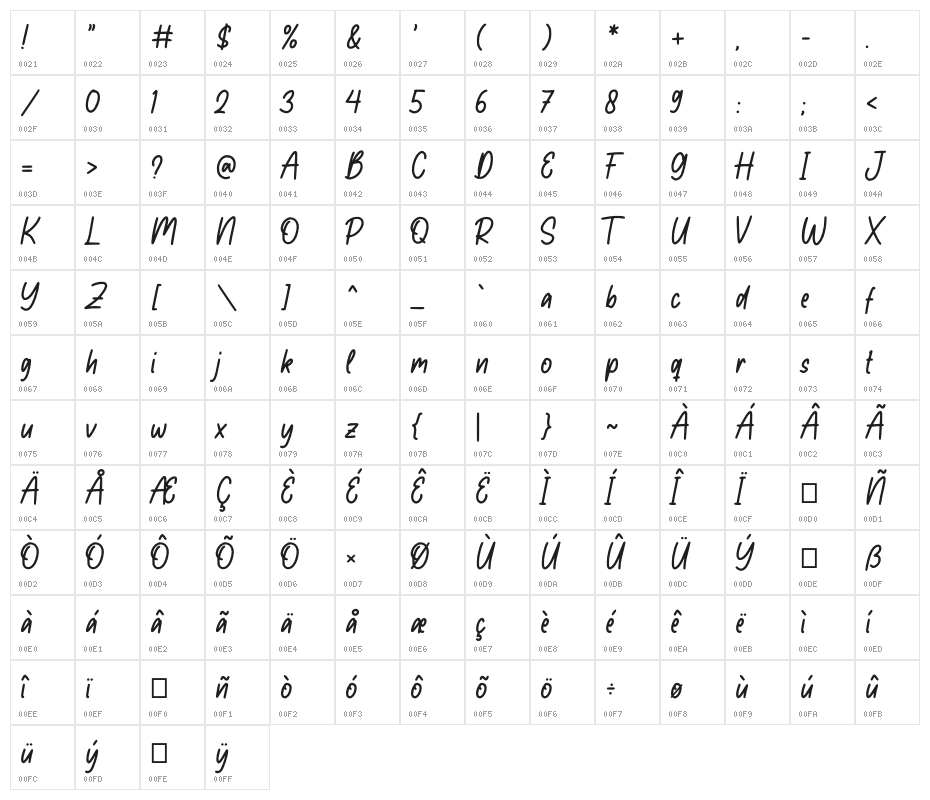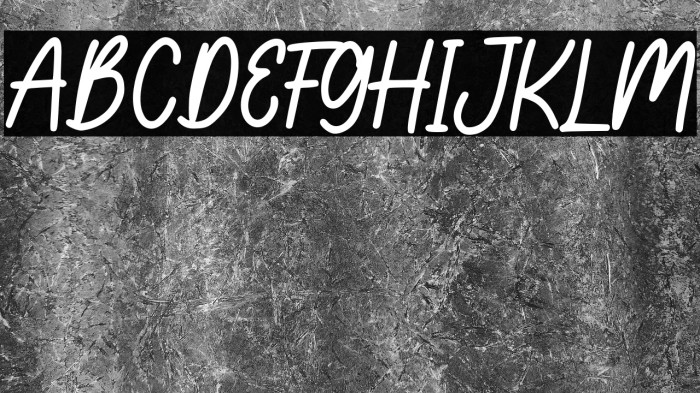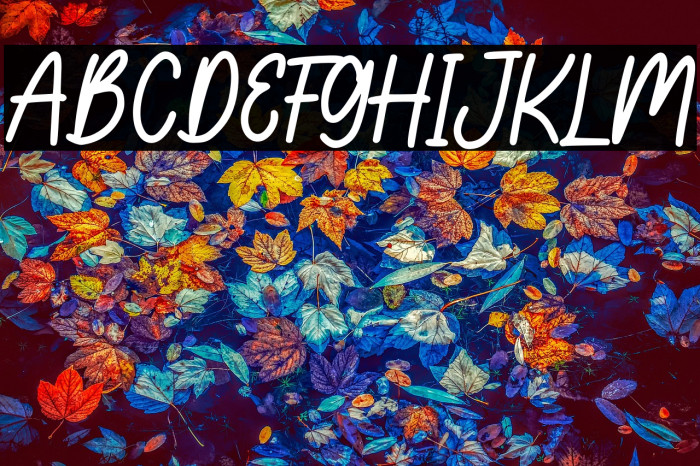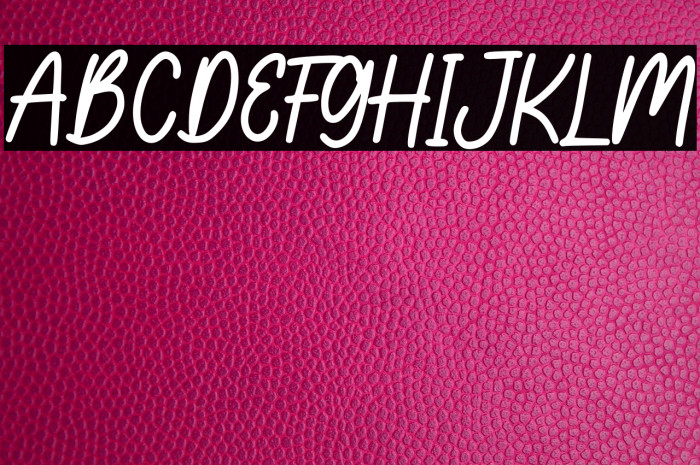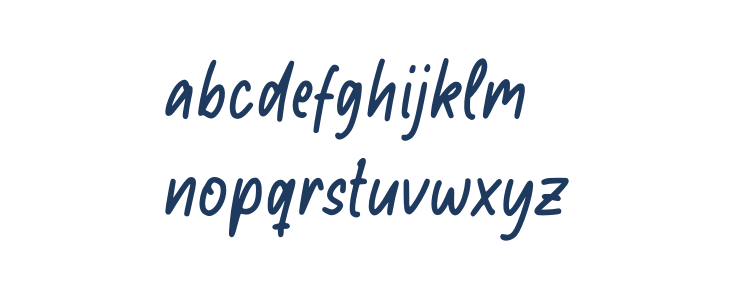
Raytone Font
Raytone Description
This font features a dynamic and energetic handwritten style, characterized by fluid strokes and a casual, informal appearance. The letters are slightly slanted, giving a sense of motion and liveliness. The uppercase and lowercase letters maintain a consistent style, with smooth curves and rounded edges. The numerals and special characters follow the same aesthetic, ensuring uniformity across all glyphs. This font is ideal for projects that require a personal touch, such as invitations, greeting cards, or creative branding. Its playful yet legible design makes it suitable for both digital and print media.
| Overall Style | Casual |
| Use Case | Headlines, Logos, Invitations |
| Proposed Projects | Ideal for invitations, greeting cards, creative branding, and personal projects. |